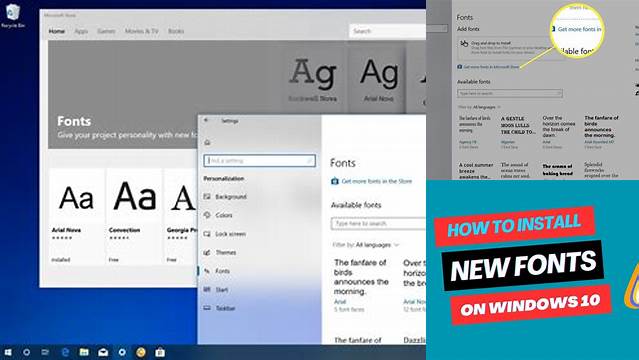
Install New Fonts On Windows 10: A Simple Guide
Installing new fonts on your Windows 10 system can drastically improve your document creation, graphic design, and overall computer experience. Whether you're a professional designer or simply someone who enjoys customizing their digital environment, understanding how to install new fonts Windows 10 is a valuable skill. This guide provides a comprehensive walkthrough of the various methods to add fonts and manage them effectively.
1. Downloading Fonts: Where to Find Your Perfect Typeface
Before you can install new fonts, you need to find them! Luckily, the internet is teeming with websites offering both free and premium fonts. Popular websites like Google Fonts, Adobe Fonts (for Creative Cloud subscribers), Dafont, and Fontspace are excellent starting points. When downloading fonts, ensure they are compatible with Windows 10 (usually in .ttf, .otf, or .fon format) and come from a reputable source to avoid malware. Always check the license agreement to understand how you can legally use the font. Are you guys ready to dive into the font-astic world?
Paragraph optimization: When you're looking for the perfect font, make sure to do your research. Look at different font styles like serif, sans-serif, script, and decorative. Each style brings a unique look and feel to your projects. For example, serif fonts are great for formal documents because they have those little feet that make them easy to read in long blocks of text. Sans-serif fonts, on the other hand, are cleaner and more modern, perfect for websites and headings. If you're aiming for a personal touch, script fonts can add elegance, but remember to use them sparingly so they don't become hard to read. Decorative fonts are super fun for posters and invitations, but they're not ideal for body text. So, consider what you're working on and pick a font that fits the vibe. Websites like Google Fonts let you preview how the font will look on your website, which is super handy. And don't forget to check the license to make sure you can use the font for your project without any legal issues. Finding the right font is like picking the perfect outfit – it can really make your project stand out!
2. The Drag-and-Drop Method: The Easiest Way to Install Fonts
One of the simplest methods for installing new fonts on Windows 10 is the drag-and-drop method. Once you've downloaded your font file (e.g., a .ttf or .otf file), locate it in your Downloads folder or wherever you saved it. Open File Explorer and navigate to the Fonts folder, which is usually located at C:\Windows\Fonts. Then, simply drag the font file from its current location into the Fonts folder. Windows will automatically install the font for you. This method is quick and straightforward, making it ideal for installing a single font or a small set of fonts.
Paragraph optimization: The drag-and-drop method is super straightforward, and it's usually the first one I recommend to folks. The key is to find that Fonts folder. You can just type C:\Windows\Fonts into the File Explorer address bar and hit enter. Once you're there, just grab the font file from your downloads and drop it in. Windows takes care of the rest, and you'll be up and running with your new font in no time. However, keep in mind that this method installs the font for all users on your computer. So, if you're sharing your computer with others, they'll also have access to that font. If you need to install a font just for your account, there's another method you can use, which we'll talk about later. But for most people, drag-and-drop is the way to go because it's so easy. Plus, it's kinda satisfying to just drop the file in and see Windows do its thing. It's like planting a little tree of typography in your system!
3. Using the Right-Click Install Option: Another Simple Approach
Another convenient way to install new fonts in Windows 10 is by using the right-click install option. After downloading the font file, locate it in File Explorer. Right-click on the font file (e.g., .ttf or .otf) and select "Install" from the context menu. Windows will then install the font automatically. This method is just as simple as the drag-and-drop method and is a great alternative if you prefer using context menus.
Paragraph optimization: Right-clicking to install a font is another super easy option, and it's perfect if you prefer using context menus. All you have to do is find the font file you downloaded, give it a right-click, and choose "Install." Windows will then take care of the rest, and your font will be ready to use in no time. It's a great alternative to the drag-and-drop method, especially if you're only installing one or two fonts. One of the nice things about this method is that it feels a bit more direct. You're telling Windows exactly what to do with that font file. Plus, it's a familiar action for most people, so it's easy to remember. If you're ever helping someone else install fonts, this is a good one to show them because it's so straightforward. Just right-click, install, and boom – you're done!
4. The Settings App: A Modern Way to Add Fonts
Windows 10 offers a modern interface for managing fonts through the Settings app. To use this method, open the Settings app by pressing the Windows key + I. Navigate to "Personalization" and then click on "Fonts" in the left sidebar. On the Fonts page, you can drag and drop font files directly into the "Add fonts" section, or click the "Get more fonts in Microsoft Store" link to browse and install fonts from the Microsoft Store. This method provides a centralized location for managing your fonts and is particularly useful if you want to explore fonts available through the Microsoft Store.
Paragraph optimization: Using the Settings app to install fonts is a modern way to manage your typefaces in Windows 10. To get started, just press the Windows key + I to open the Settings app. Then, click on "Personalization" and select "Fonts" in the left sidebar. From here, you can simply drag and drop font files into the "Add fonts" section. This is a great way to keep everything organized and centralized. Plus, it's super easy to do. Another cool feature is the "Get more fonts in Microsoft Store" link, which takes you to the Microsoft Store where you can browse and install fonts directly. This is a convenient option if you want to explore new fonts without having to search the web. The Settings app provides a clean and user-friendly interface for managing your fonts, making it a great choice for both beginners and experienced users. It's all about keeping your font game strong!
5. Installing Fonts for a Single User: When You Need Privacy
By default, the methods described above install fonts for all users on the computer. If you want to install new fonts on Windows 10 for only your account, there's a workaround. Instead of dragging the font file into the C:\Windows\Fonts folder, create a Fonts folder within your user profile directory (e.g., C:\Users\YourUsername\AppData\Local\Microsoft\Windows\Fonts). Then, drag the font file into this folder. Windows will recognize the font and make it available only for your user account. This method is useful if you want to keep your fonts private or avoid cluttering the system-wide fonts list.
By following these tips and techniques, you can confidently install new fonts on Windows 10 and create visually stunning designs that stand out from the crowd. Remember to manage your fonts effectively, troubleshoot any issues that arise, and always respect font licensing agreements. Happy font hunting, everyone!